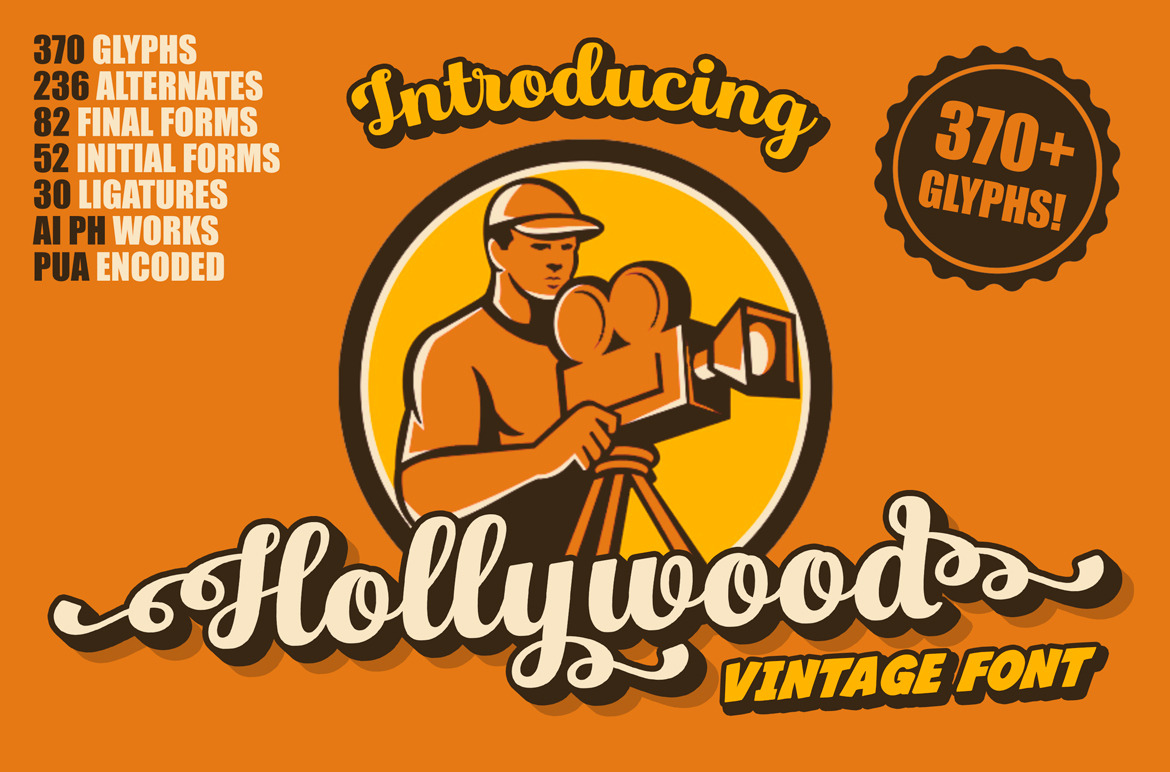
Hollywood • Vintage Font
Introduce my new job - vintage font Hollywood. This font is OpenType. Hollywood is very easy to use. It works in Illustrator, Photoshop and another programs. All alternate glyphs work automatically. This font is PUA encoded. It is perfect for your project. You can create logos or posters and much more.